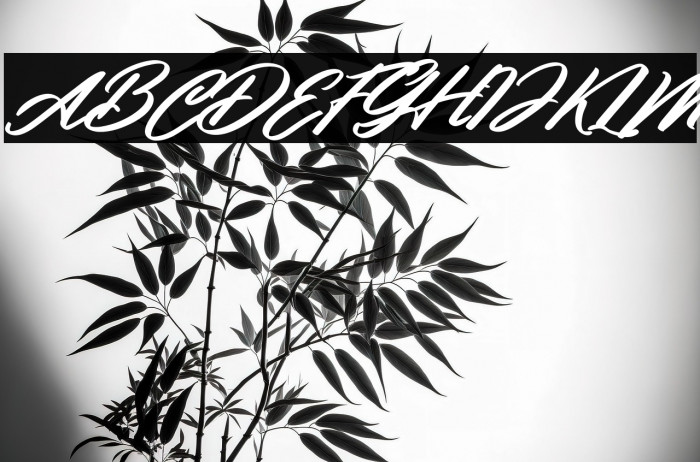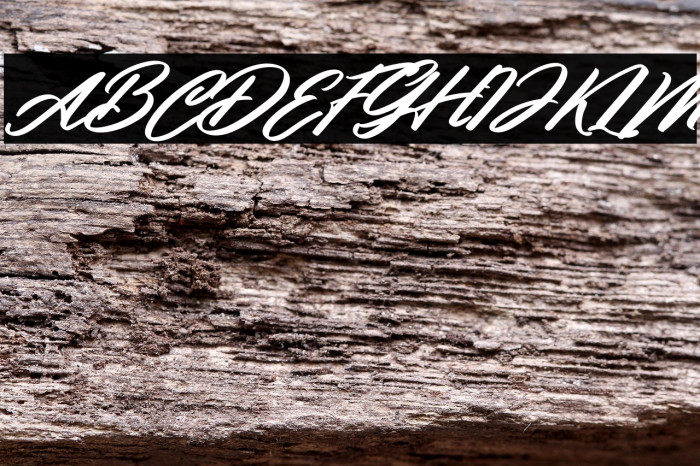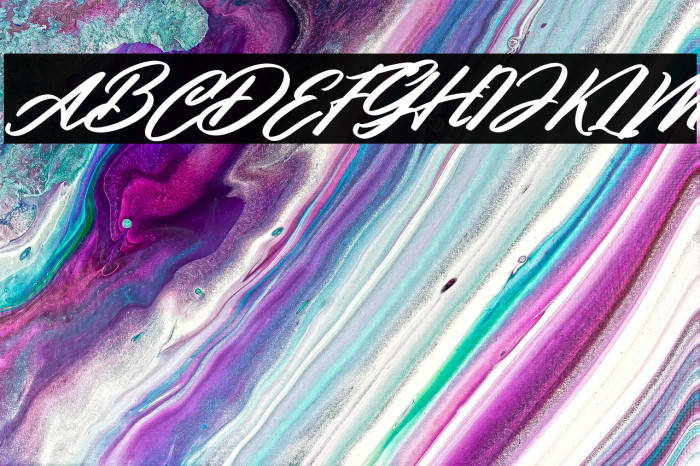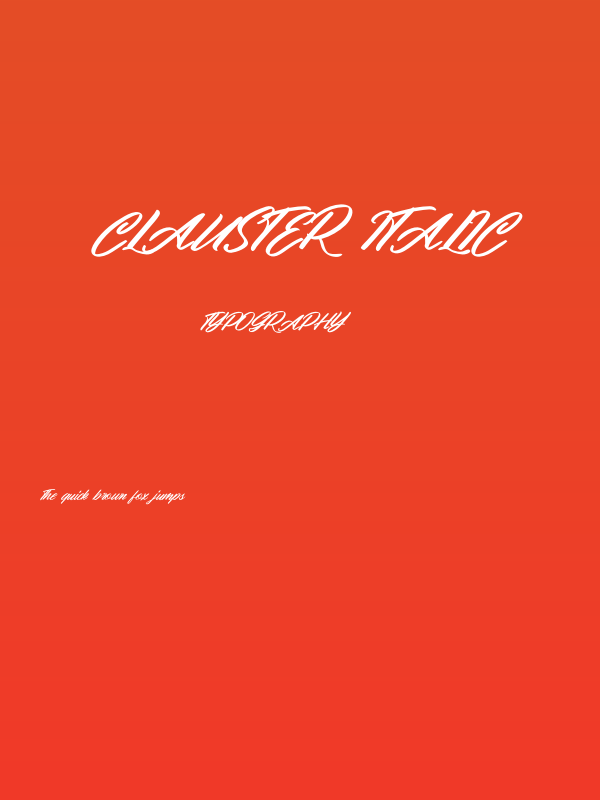
Clauster Italic Font
Clauster Italic Description
This font exhibits a dynamic and flowing script style, characterized by its elegant and cursive letterforms. The strokes are smooth and connected, giving it a handwritten appearance. The uppercase letters are bold and slightly slanted, while the lowercase letters maintain a consistent flow with a slight inclination. The numerals and special characters are designed to match the overall cursive aesthetic, ensuring a cohesive look across all elements. The font's style is both sophisticated and expressive, making it suitable for projects that require a personal touch.
Use CaseLogos, Headlines, Invitations
Proposed ProjectsIdeal for wedding invitations, greeting cards, personal branding, and elegant packaging designs.